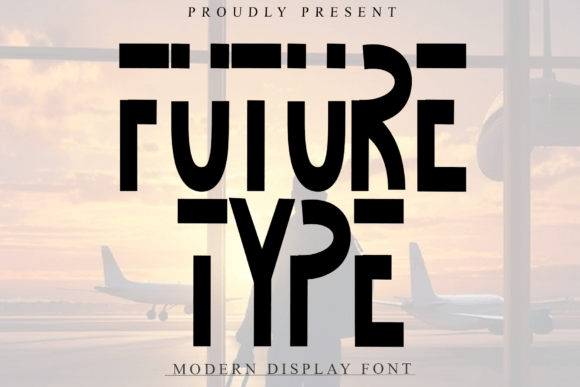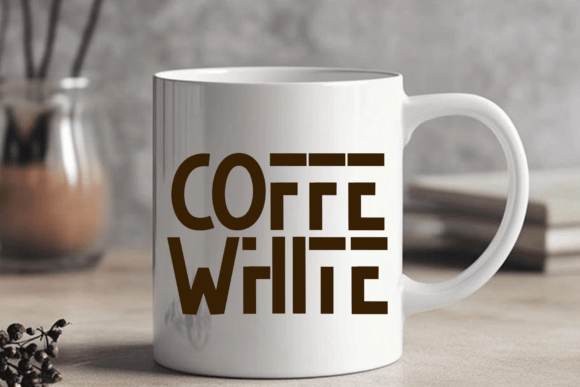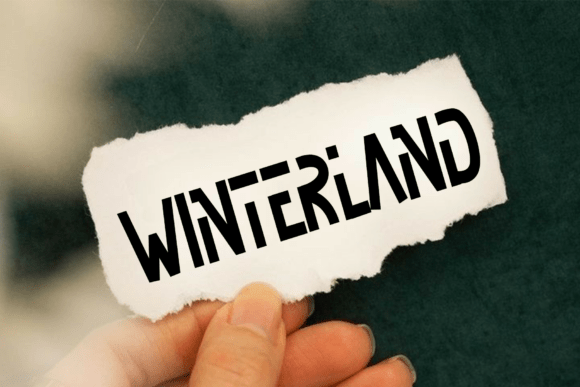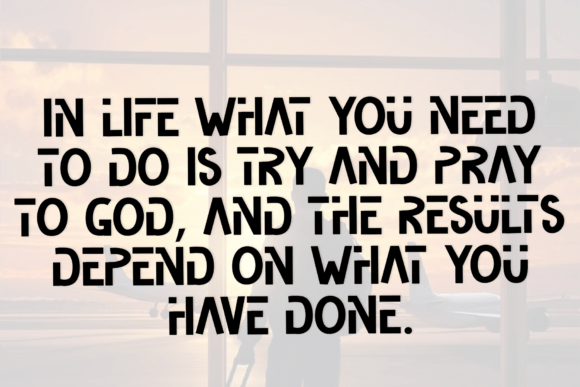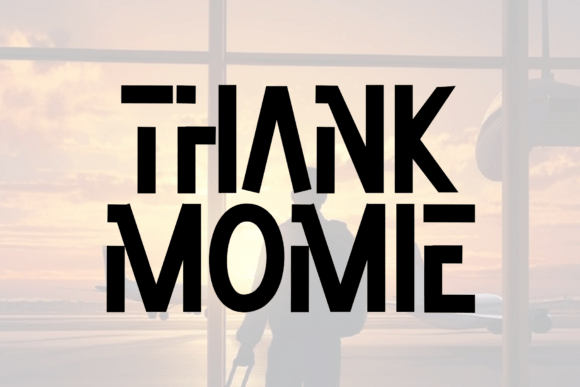
Unlocking the Future of Typography
As designers, we’ve all had those moments of creative obsession – the ones where we get lost in the possibilities of a new project and suddenly find ourselves envisioning an entire world around a single idea. For me, that moment came when I stumbled upon the Future Type Font, a bold and experimental display font that reimagines geometric structure for the modern era.
This cutting-edge font is not just a design tool, but a key to unlocking a futuristic aesthetic that’s perfect for sci-fi branding, tech start-ups, and architectural signage. With its unique stenciled cut-outs and unexpected curves, the Future Type Font is a transmission from a high-tech civilization that’s sure to captivate audiences and leave a lasting impression.
For designers, the Future Type Font is a valuable asset that offers endless creative possibilities. Its versatility and boldness make it an ideal choice for a wide range of applications, from t-shirt designs and app icons to futuristic movie posters and architectural signage.
Future Type Font Key Features
- Unique Characteristics: Future Type Font features a unique blend of futuristic and minimalist design elements, making it perfect for modern and innovative designs. The font’s geometric shapes and clean lines give it a cutting-edge look.
- Legibility: The font is highly legible, even at small sizes, making it suitable for a wide range of applications, including digital signage, wayfinding, and user interface design.
- Language Support: Future Type Font supports over 200 languages, including Latin, Cyrillic, and Greek scripts, making it a great choice for global brands and organizations.
- Scalability: The font is highly scalable, making it suitable for use in a wide range of applications, from small mobile devices to large-format displays.
Future Type Font Review
Overall, I think Future Type Font is a solid choice for designers looking for a modern, futuristic aesthetic. ✨ Its unique blend of geometric and organic elements creates a visually striking effect that’s perfect for tech and sci-fi themed projects.
- ✨ The font’s high contrast and geometric shapes make it highly legible, even at small sizes.
- ✨ The font’s versatility allows it to be used in a wide range of applications, from digital interfaces to print materials.
- ✨ The font’s unique character shapes add a touch of personality to any design, making it a great choice for branding and identity projects.
- ⚠️ The font may be too bold or overpowering for certain designs, so be sure to use it sparingly and in combination with other typography elements.
- ⚠️ The font’s high contrast may not be suitable for designs that require a lot of fine typography or subtle nuances.
Overall, I think Future Type Font is a great choice for designers who want to add a touch of futurism to their designs. Just be sure to use it thoughtfully and in conjunction with other typography elements to get the most out of it.
Future Type Font Practical Application Guide
Use Future Type Font to create a futuristic and modern look in your designs. Experiment with different font sizes, styles, and colors to create a unique visual identity.
Future Type Font is ideal for:
- Creating futuristic and modern logos.
- Designing sci-fi themed posters and graphics.
- Adding a touch of futurism to your business branding.